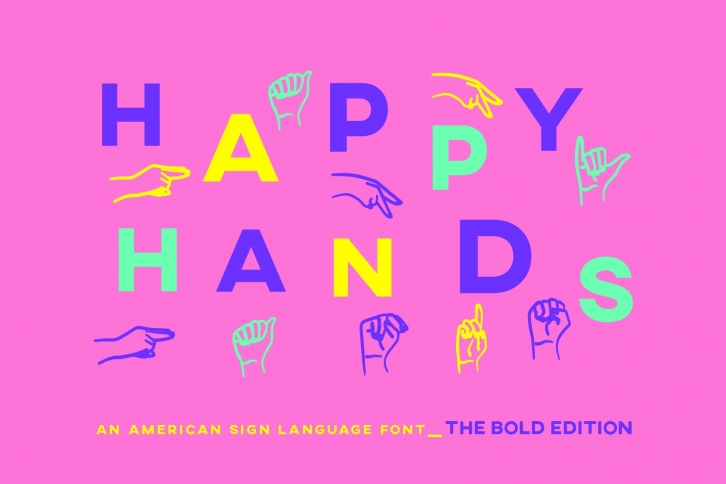
ASL American Sign Language Symbols Alphabet Numbers is a trendy and unique font with an authentic style. It was designed by InkCloudDesign and it's a great choice for creative people who need such a font. It was released on September 4, 2020 and the file size is 1.23 MB. ASL American Sign Language Symbols Alphabet Numbers will add an organic vibe to any design idea!